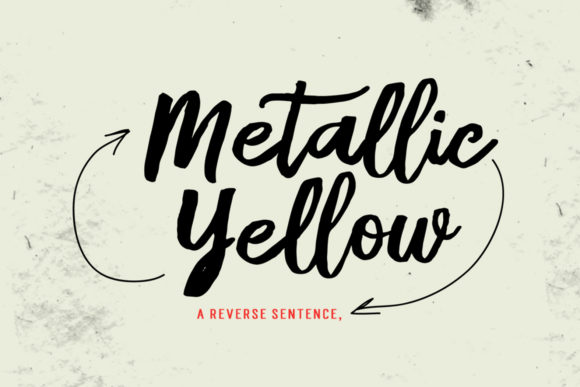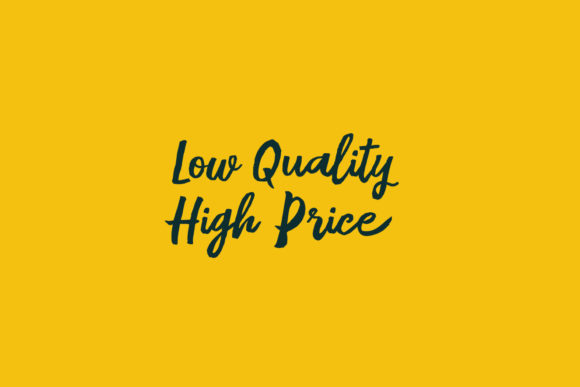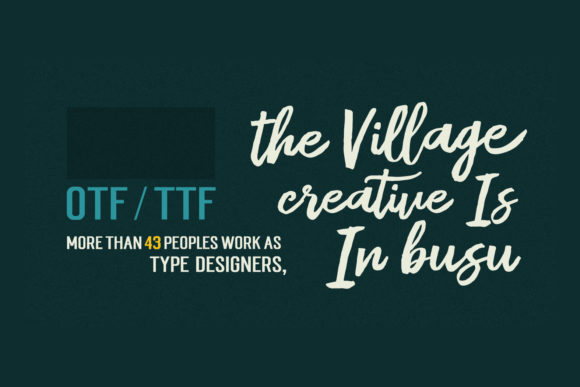
Introduction to Justloves Font
Do you ever find yourself in a creative rut, staring at a blank page or screen, wondering where to start your next design project? I know I do! Sometimes, all it takes is a spark of inspiration to get those creative juices flowing. For me, that spark often comes from discovering a new design resource that adds a touch of personality to my work.
Recently, I stumbled upon the Justloves Font, and I’m thrilled to share my excitement with you. This fun and authentic handwritten font is a game-changer for designers looking to add a touch of whimsy to their creative projects. With its adorable charm, the Justloves Font is perfect for designers seeking to elevate their work with a high-quality, free download that can be easily used on a transparent background.
Key Features of Justloves Font
- High-quality, professional design suitable for creative projects and design resources.
- Transparent background, allowing for easy integration into various design elements.
- Unique, modern design that adds a touch of elegance to any creative project.
- Perfect for use in graphic design, web design, and digital art, making it a versatile design resource.
Honest Review: Justloves Font
As a designer, I’m always on the lookout for high-quality design resources to elevate my creative projects. Recently, I stumbled upon the Justloves Font, and I’m excited to share my honest review.
- ✨ The font has a transparent background, which makes it perfect for creating visually appealing designs with a clean and minimalist aesthetic.
- ✨ The font is highly customizable, allowing me to adjust the size, color, and style to suit my creative project’s needs.
However, there are some limitations:
- ⚠️ The font’s scalability can be a bit rough, especially at larger sizes.
Overall, I’m impressed with the Justloves Font. While it has some limitations, its free download and high-quality design make it a valuable resource for designers working on creative projects. If you’re looking for a unique and stylish font, the Justloves Font is definitely worth checking out.
How to Use Justloves Font
The Justloves Font is a high-quality design resource perfect for creative projects that require a unique touch. With a transparent background, this font is versatile and easy to use in various design applications.
Tips for Getting the Most Out of Justloves Font
To maximize the effectiveness of the Justloves Font, consider the following tips:
- Use the font in combination with other design elements to create a unique look.
- Experiment with different font sizes and colors to achieve the desired effect.
- Pair the font with a transparent background to create a clean and modern design.
Common Use Cases for Justloves Font
The Justloves Font is ideal for various design projects, including:
- Social media graphics and posts.
- Business cards and marketing materials.
- Presentations and reports.
Alternatives to Justloves Font
1. Alex Brush
Alex Brush is a high-quality, handwritten font ideal for creative projects requiring a touch of elegance and sophistication. It’s perfect for wedding invitations, greeting cards, and other design elements that need a personal touch.
Compared to Justloves Font, Alex Brush offers a more refined and sophisticated look, making it suitable for a wider range of design applications.
2. Pacifico
Pacifico is a beautiful, modern script font featuring a transparent background, making it easy to use with any design element. It’s ideal for branding, advertising, and other creative projects that require a unique and stylish touch.
Pacifico is similar to Justloves Font in its elegant and sophisticated look, but it offers a more modern and sleek design, making it suitable for a wider range of design applications.
Does the Justloves Font have a transparent background?
Yes, the Justloves Font has a transparent background, making it easy to use on any design background. This feature is especially useful for designers who want to create visually appealing designs with a clean and minimalist aesthetic.